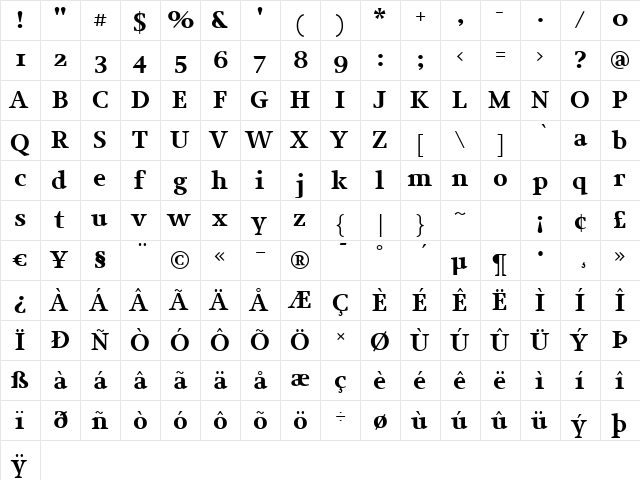
JudeBlack Regular
Design Context for JudeBlack Typeface
JudeBlack takes a measured approach to typography — its balanced proportions and neutral character make it a reliable workhorse for both digital and print work.